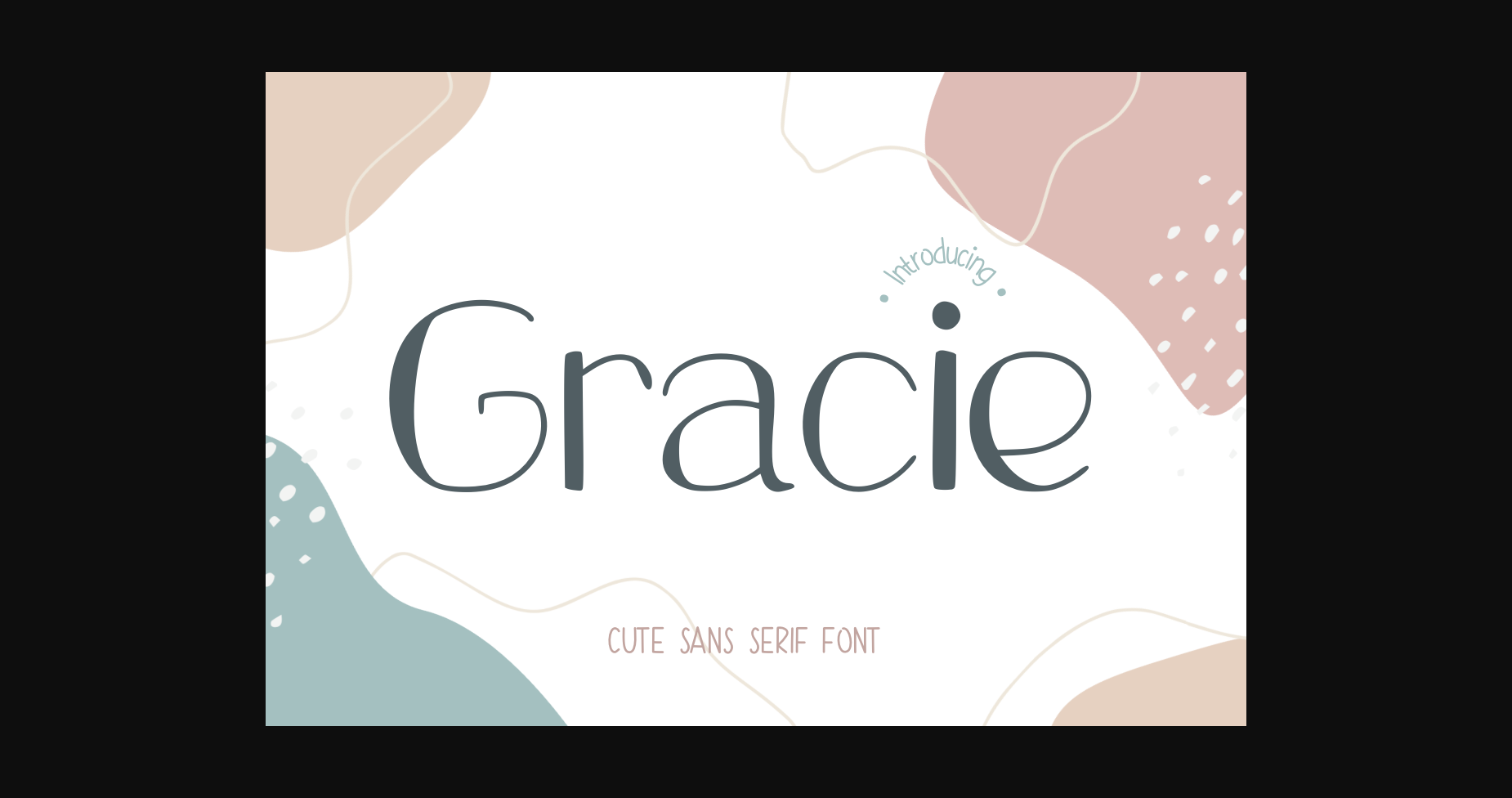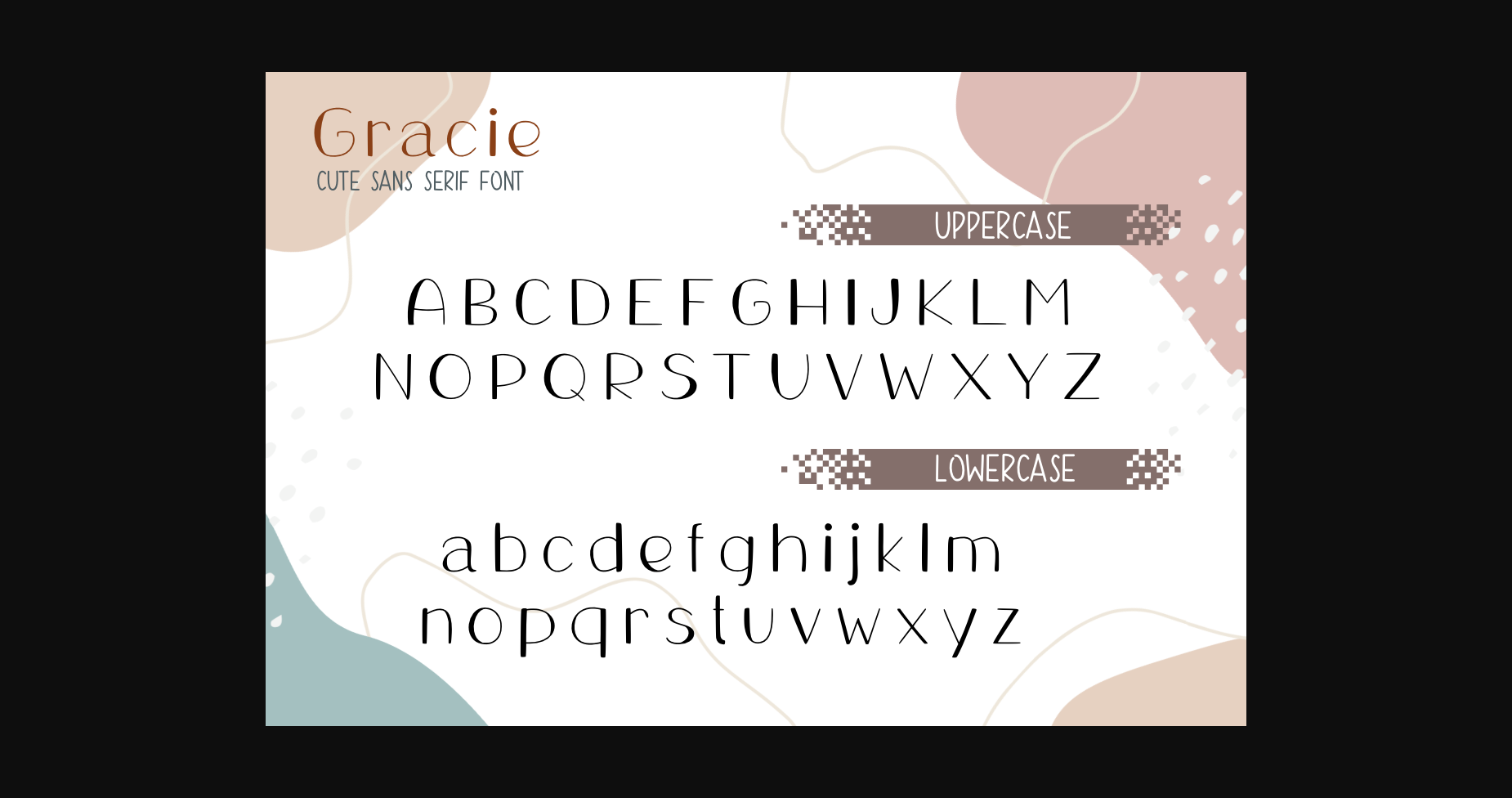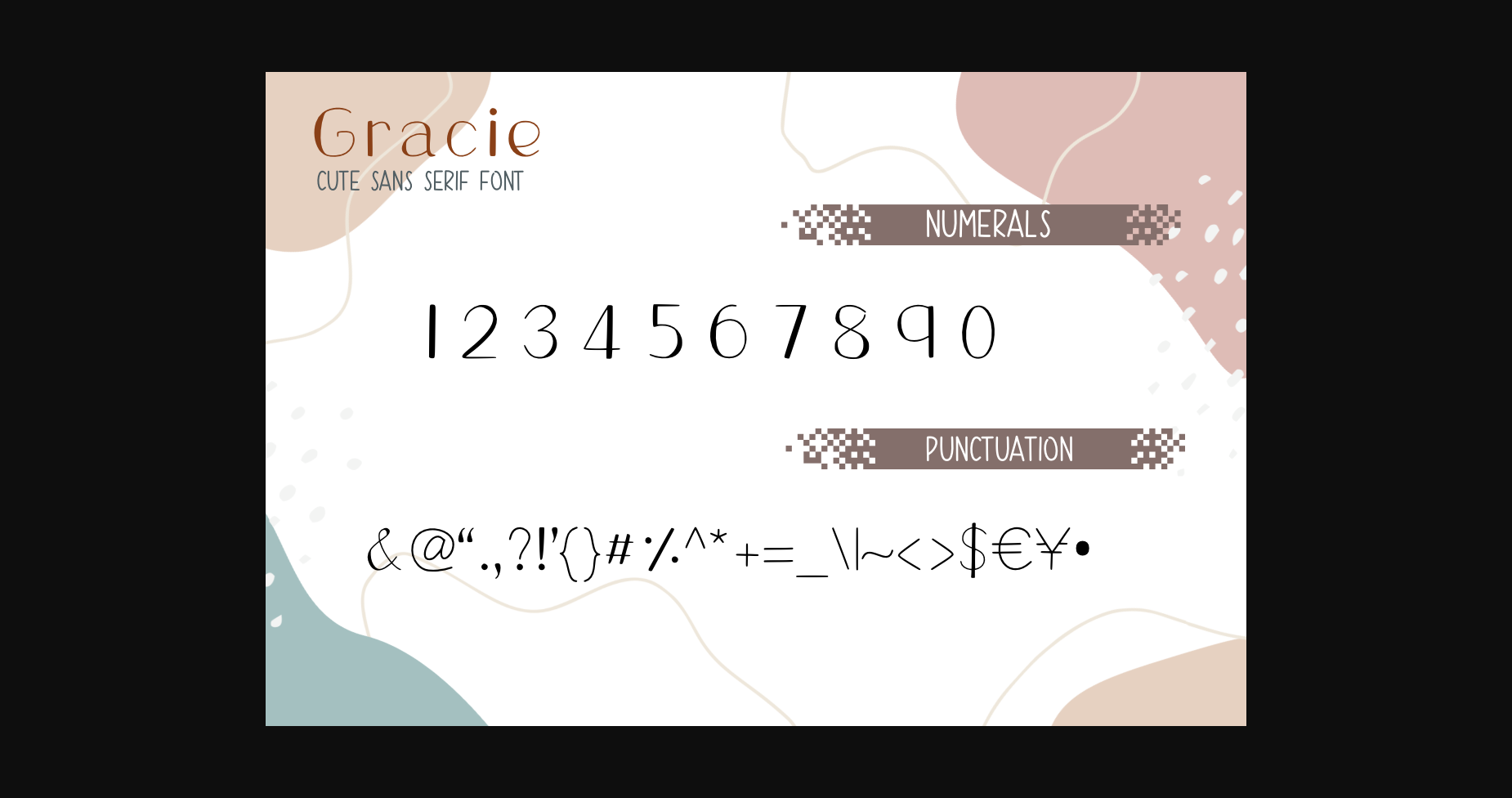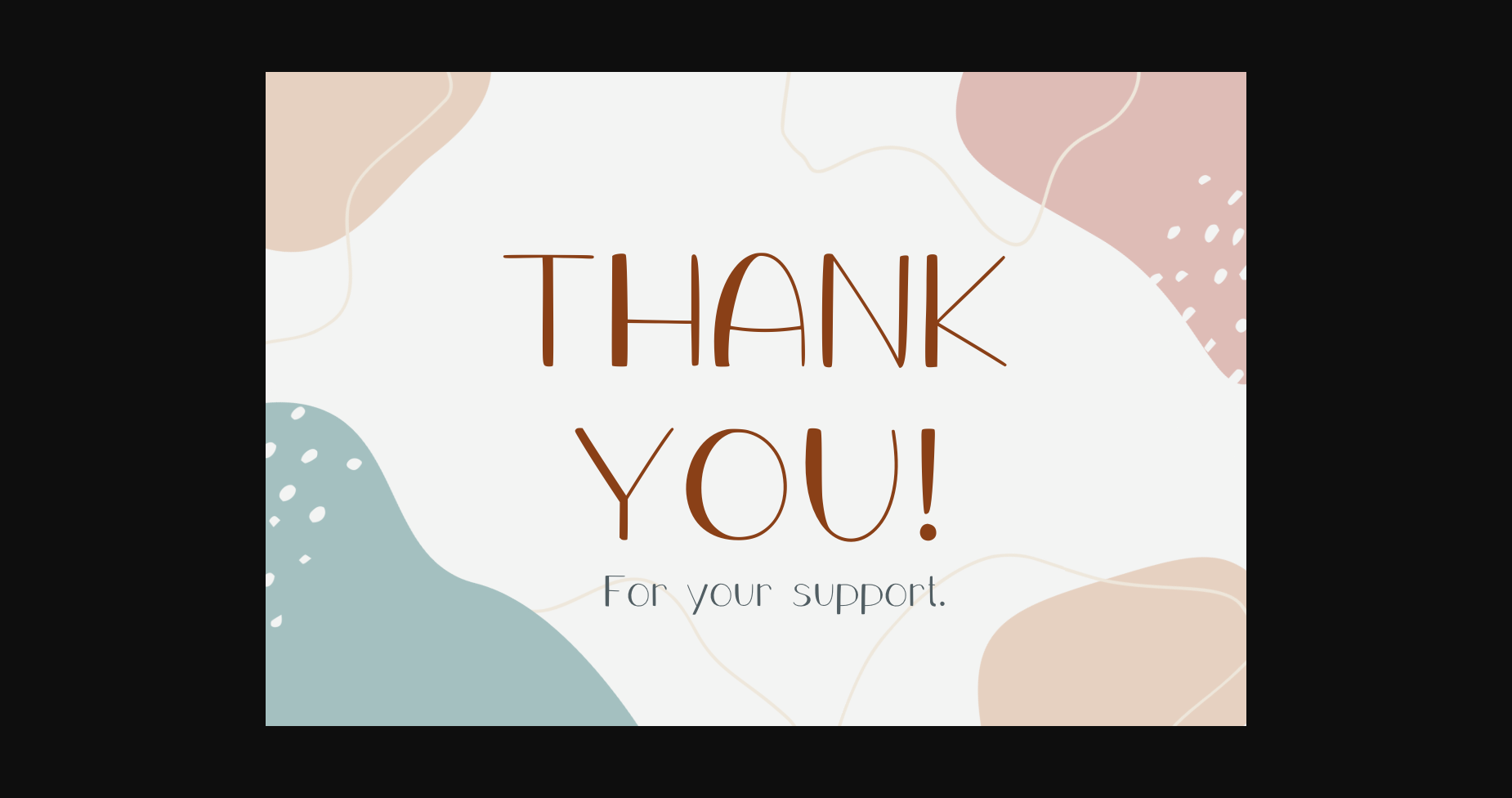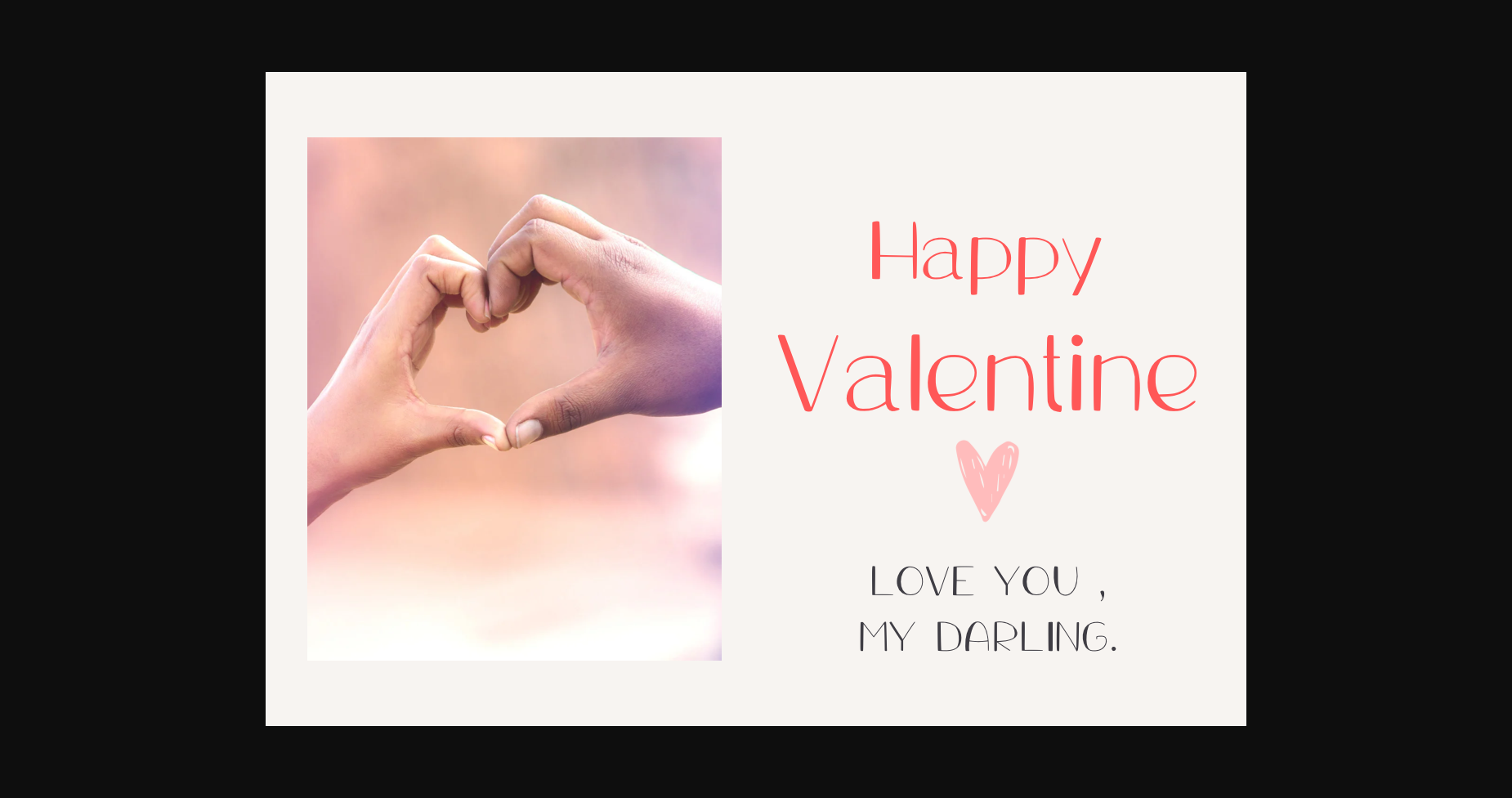
Gracie Font
Gracie is an elegant and beautiful sans serif font that will elevate a wide range of crafting ideas.
You can use it to create Valentine cards, wedding invitations, beautiful stationary art, social media posts, and much more!